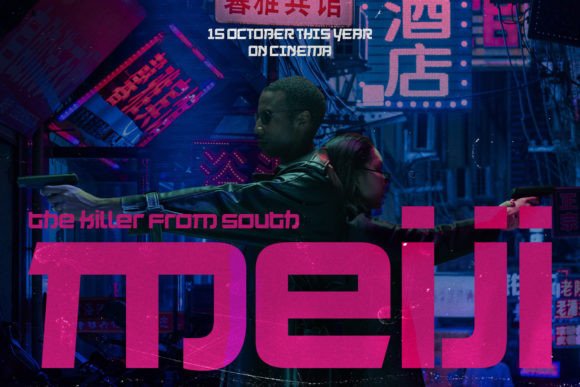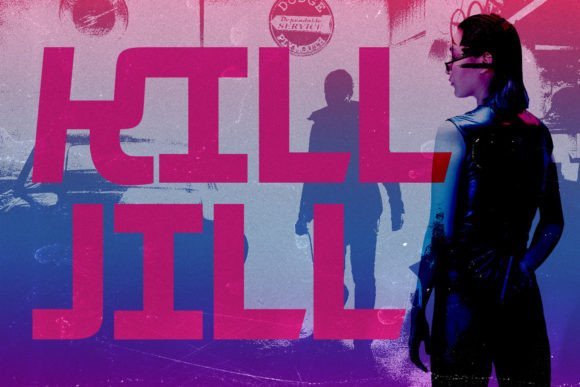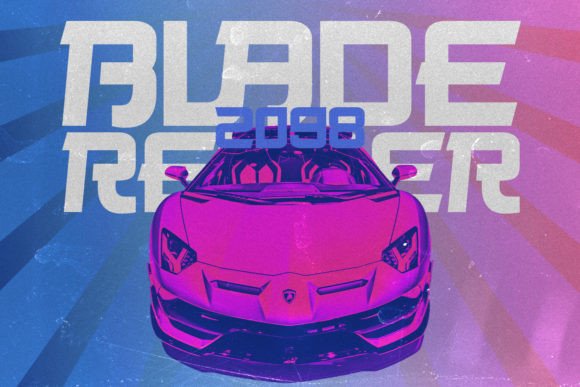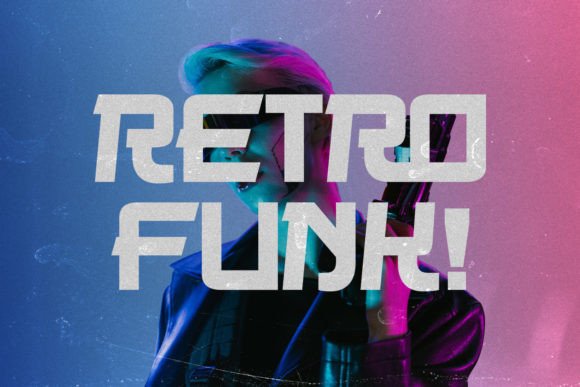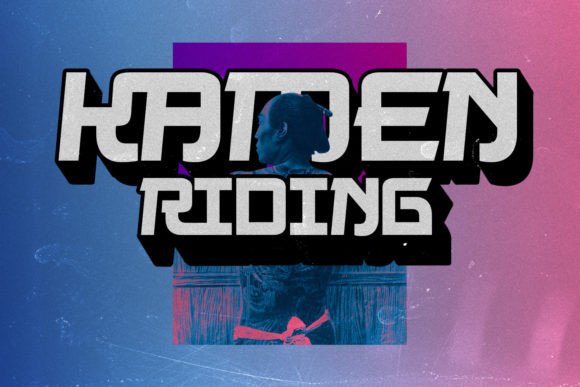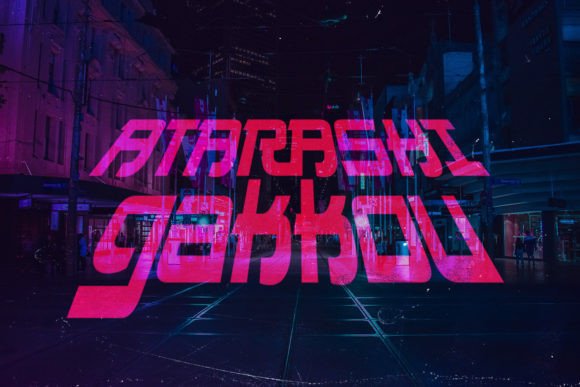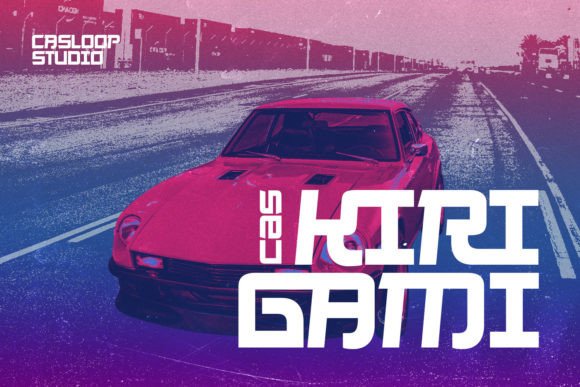
Cas Kirigami Font: A Cyberpunk-Inspired Display Font with a Japanese Twist
In the world of typography, fonts play a crucial role in defining the aesthetic and tone of a design project. For designers and crafters looking to add a unique touch to their work, the Cas Kirigami font is an exciting discovery. This display font seamlessly integrates Japanese culture into Latin alphabets, resulting in a captivating visual experience. Inspired by the styles of Japanese city pop and cyberpunk, Cas Kirigami brings a distinctive nuance to the world of typography.
The Intersection of Japanese Culture and Cyberpunk
Japanese culture has long been a source of inspiration for designers worldwide, with its vibrant colors, intricate patterns, and futuristic themes. City pop, a genre that emerged in Japan in the 1980s, combines elements of jazz, funk, and electronic music with a futuristic, urban aesthetic. This style has influenced various art forms, including graphic design and typography. Cas Kirigami font takes cues from city pop and cyberpunk, infusing Latin alphabets with a Japanese twist.
The result is a font that exudes a sense of futuristic sophistication while paying homage to Japanese heritage. The Cas Kirigami font features thick, bold lines and a nuanced attention to detail, reflecting the love and respect for Japanese culture that inspired its creation.
Design Characteristics and Uses
Cas Kirigami is a display font designed to make a statement. Its bold, eye-catching appearance makes it perfect for projects that require a touch of cyberpunk flair or a nod to Japanese culture. Some potential uses for this font include:
- Logos and branding: Create a memorable and impactful logo with Cas Kirigami’s unique blend of Japanese and cyberpunk elements.
- Posters and flyers: Add a touch of futuristic sophistication to your promotional materials with this striking display font.
- Packaging design: Use Cas Kirigami to create eye-catching packaging that stands out on store shelves.
- Digital art and illustration: Incorporate this font into your digital art projects for a bold, futuristic look.
Why Choose Cas Kirigami Font?
With so many fonts available, what sets Cas Kirigami apart? Here are a few reasons why designers and crafters should consider adding this font to their collection:
- Unique aesthetic: Cas Kirigami’s blend of Japanese culture and cyberpunk style creates a distinctive visual identity that’s hard to find elsewhere.
- High versatility: This display font can be used in a wide range of projects, from logos and branding to packaging and digital art.
- Easy to read: Despite its bold, futuristic appearance, Cas Kirigami remains highly legible, making it suitable for use in various contexts.
Tips for Using Cas Kirigami Font Effectively
To get the most out of Cas Kirigami font, consider the following tips:
- Use it sparingly: As a display font, Cas Kirigami is best used in moderation. Use it to draw attention to a key message or create visual interest.
- Pair it with complementary fonts: Combine Cas Kirigami with simpler fonts to create visual contrast and add depth to your design.
- Experiment with colors and textures: Take advantage of Cas Kirigami’s bold, futuristic appearance by pairing it with bright colors and metallic textures.
Cas Kirigami font is an exciting addition to any designer’s or crafter’s collection. Its unique blend of Japanese culture and cyberpunk style creates a captivating visual experience that’s sure to leave a lasting impression. With its versatility, legibility, and bold aesthetic, Cas Kirigami is the perfect choice for projects that require a touch of futuristic sophistication and cultural flair. Try it out and discover the impact it can have on your designs!